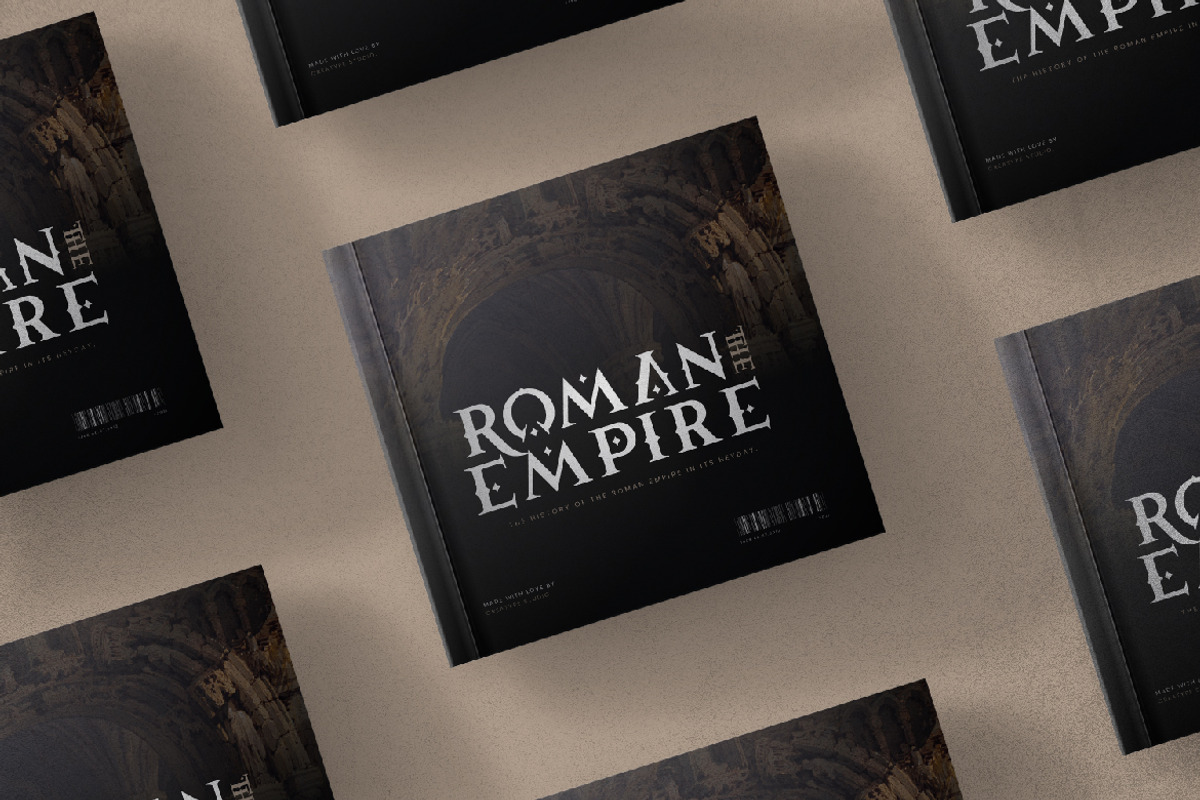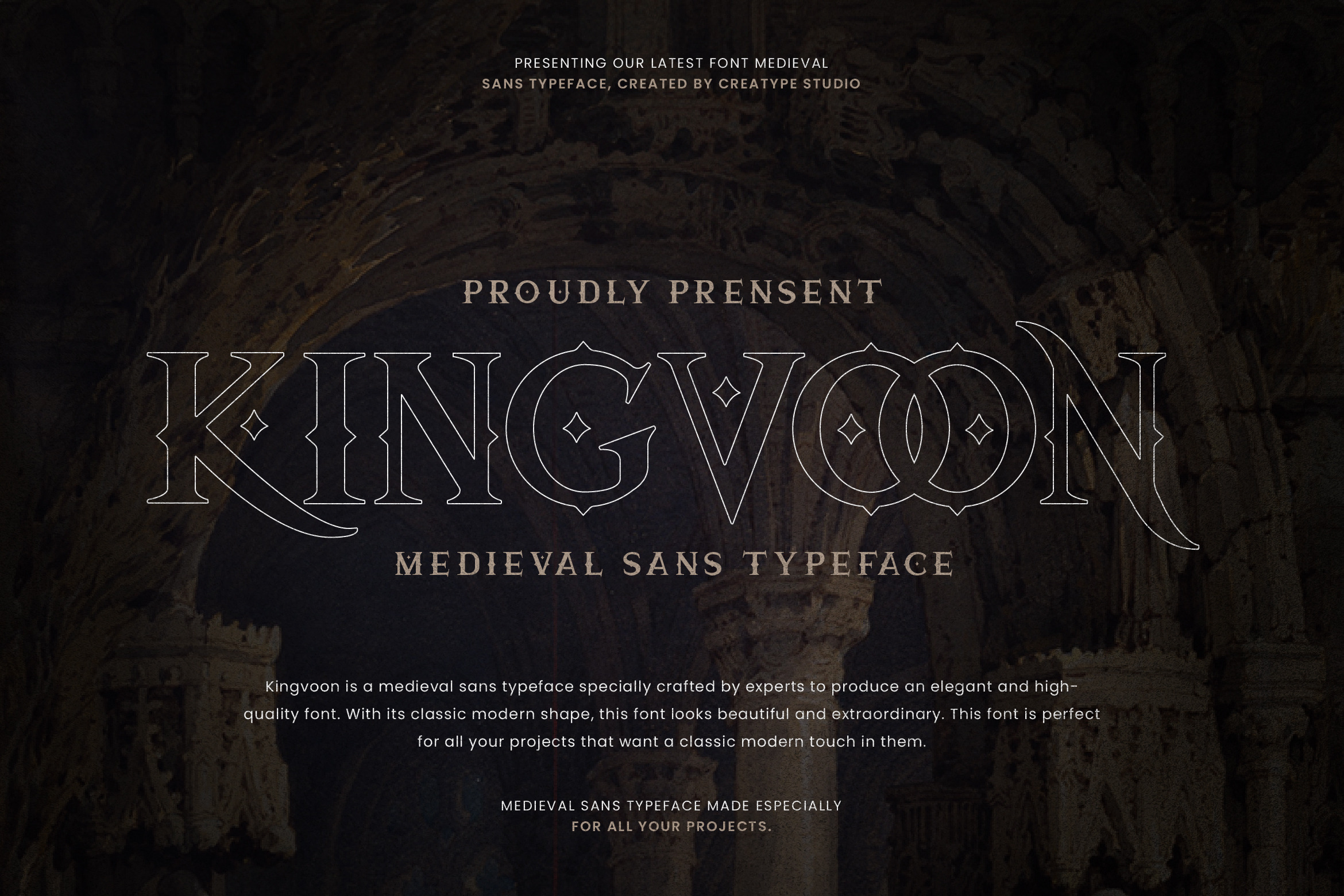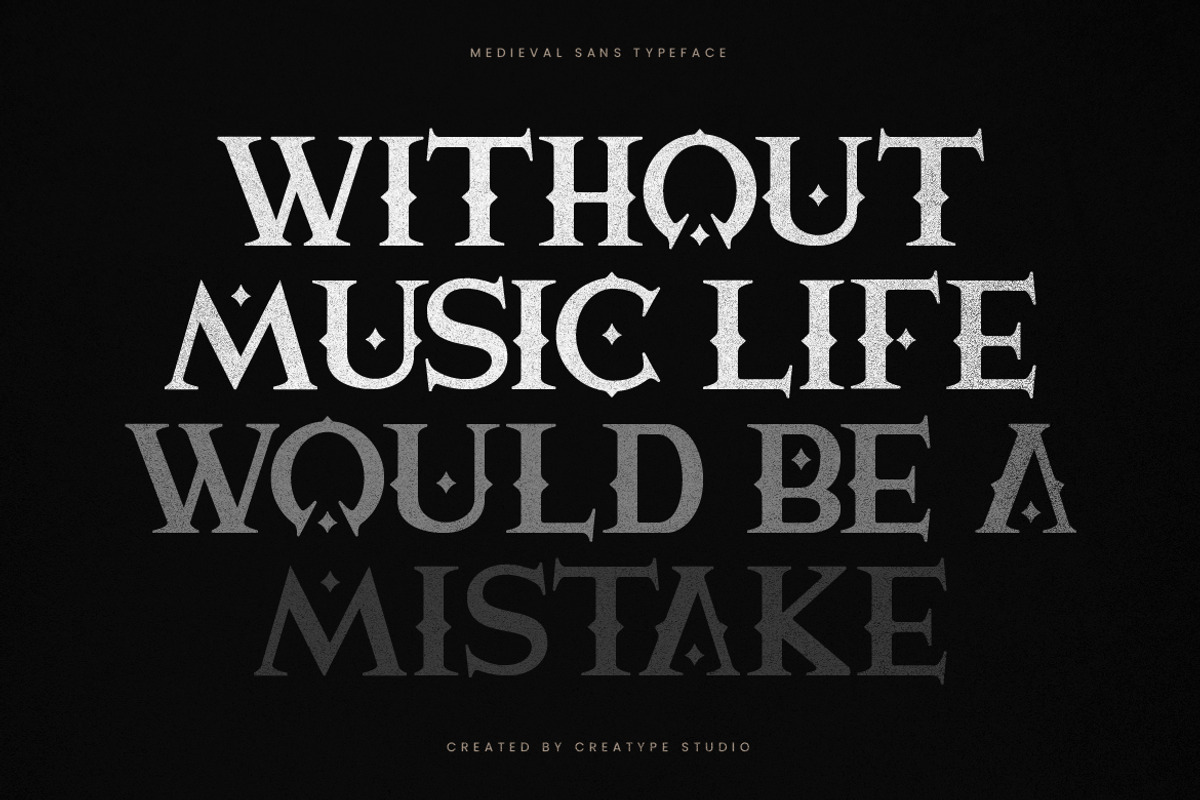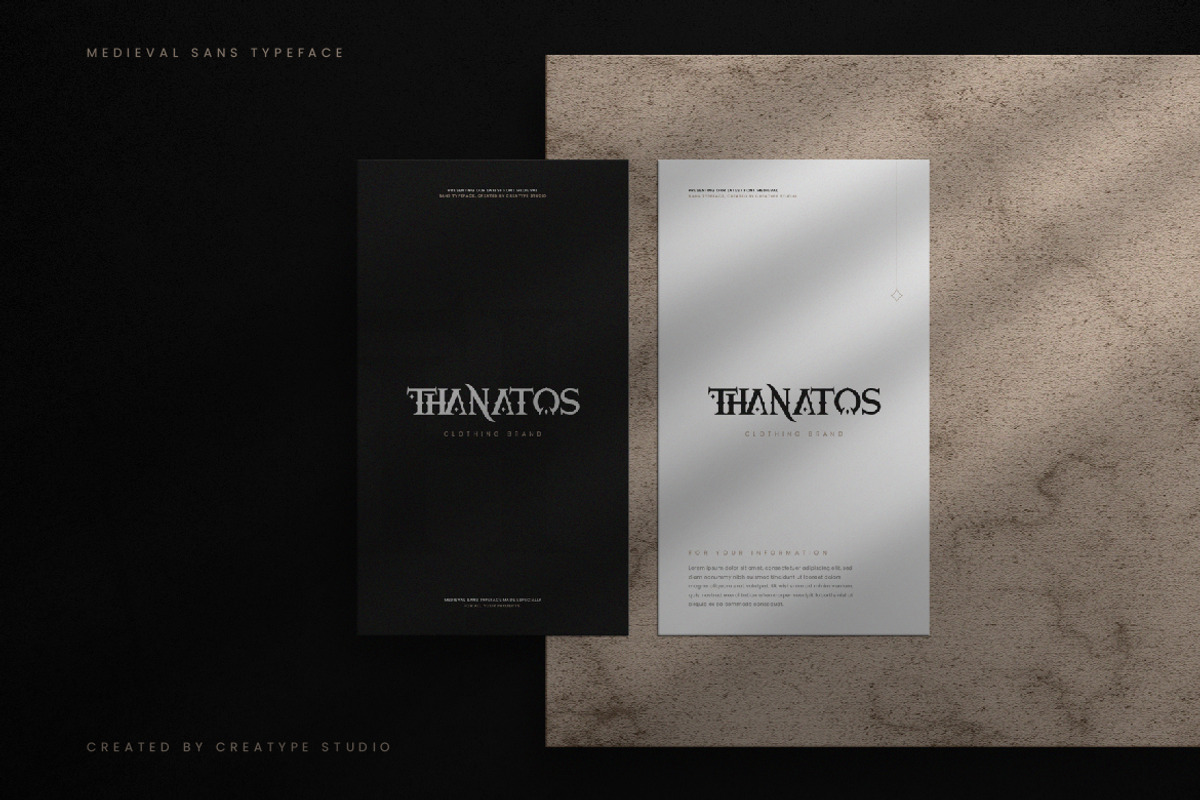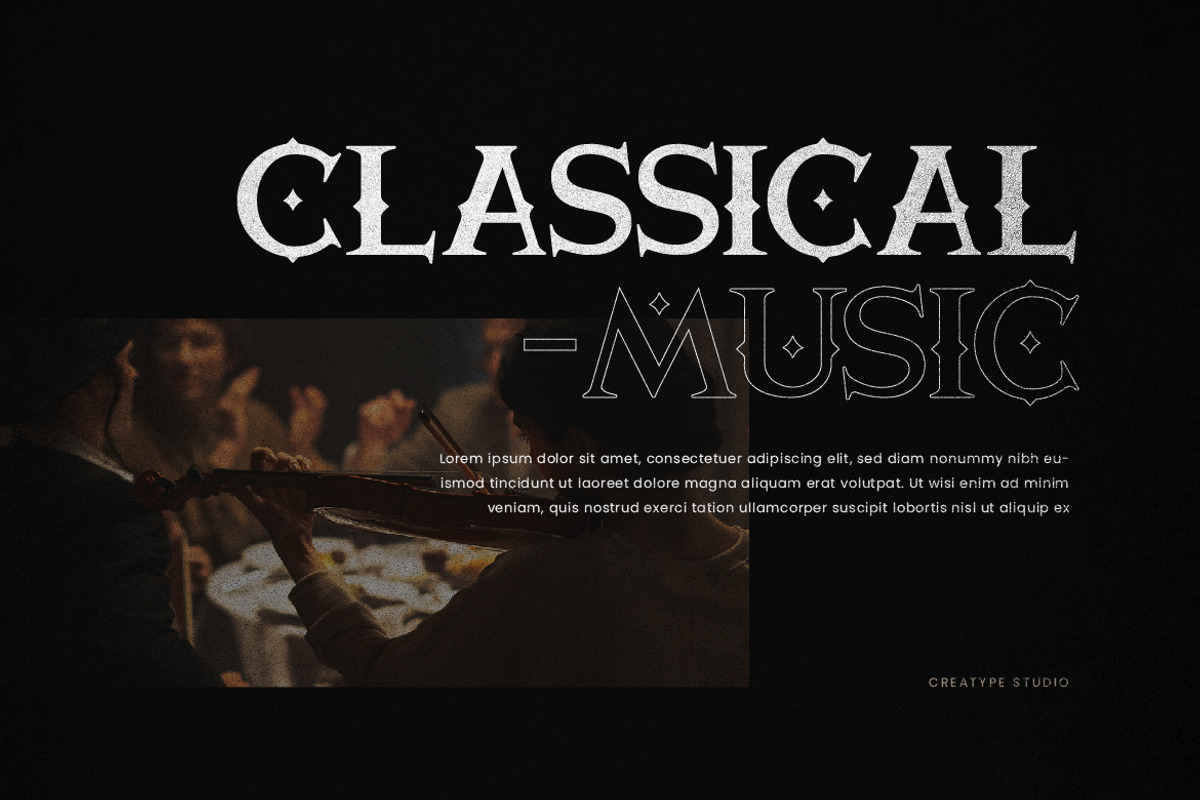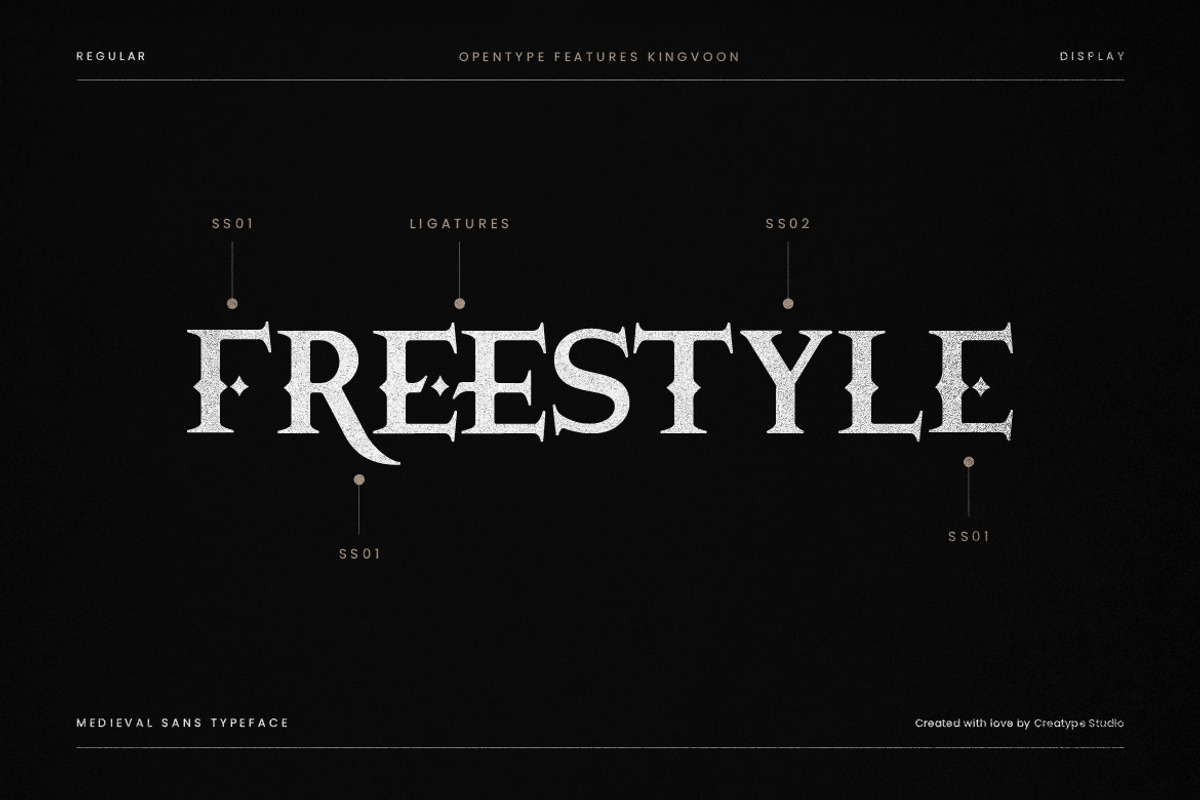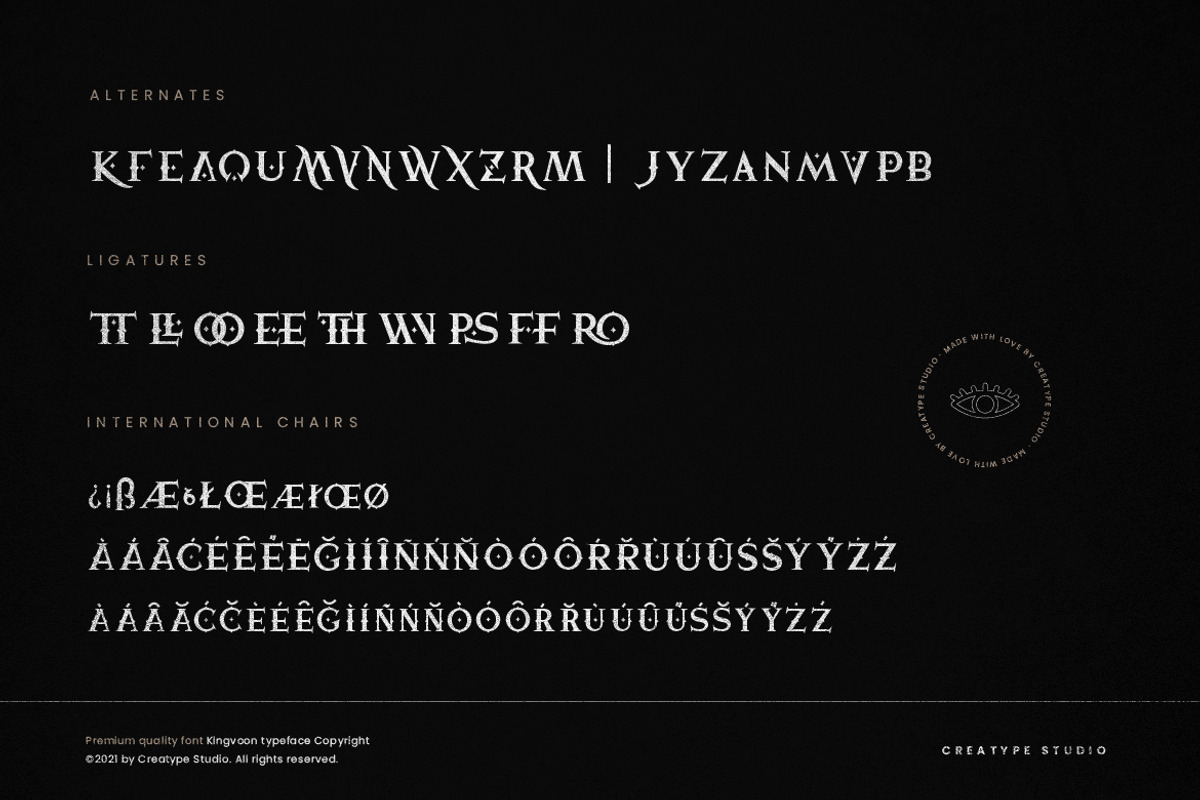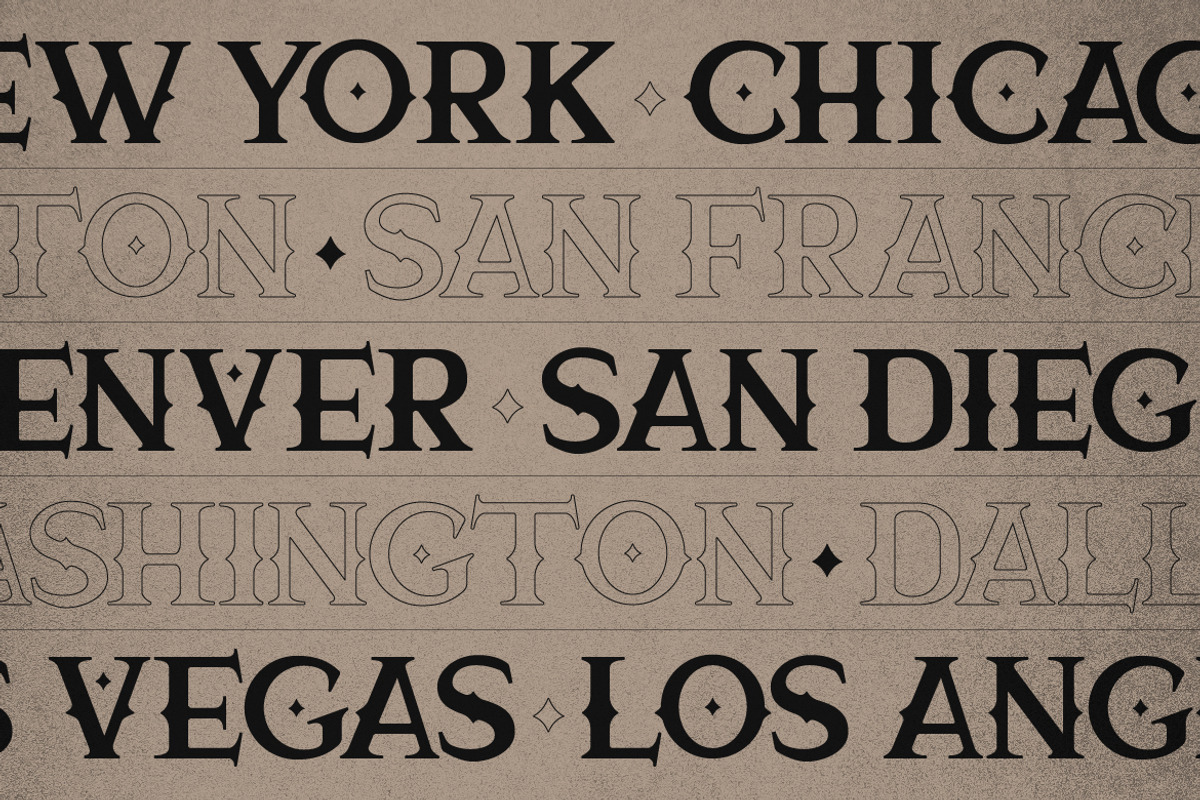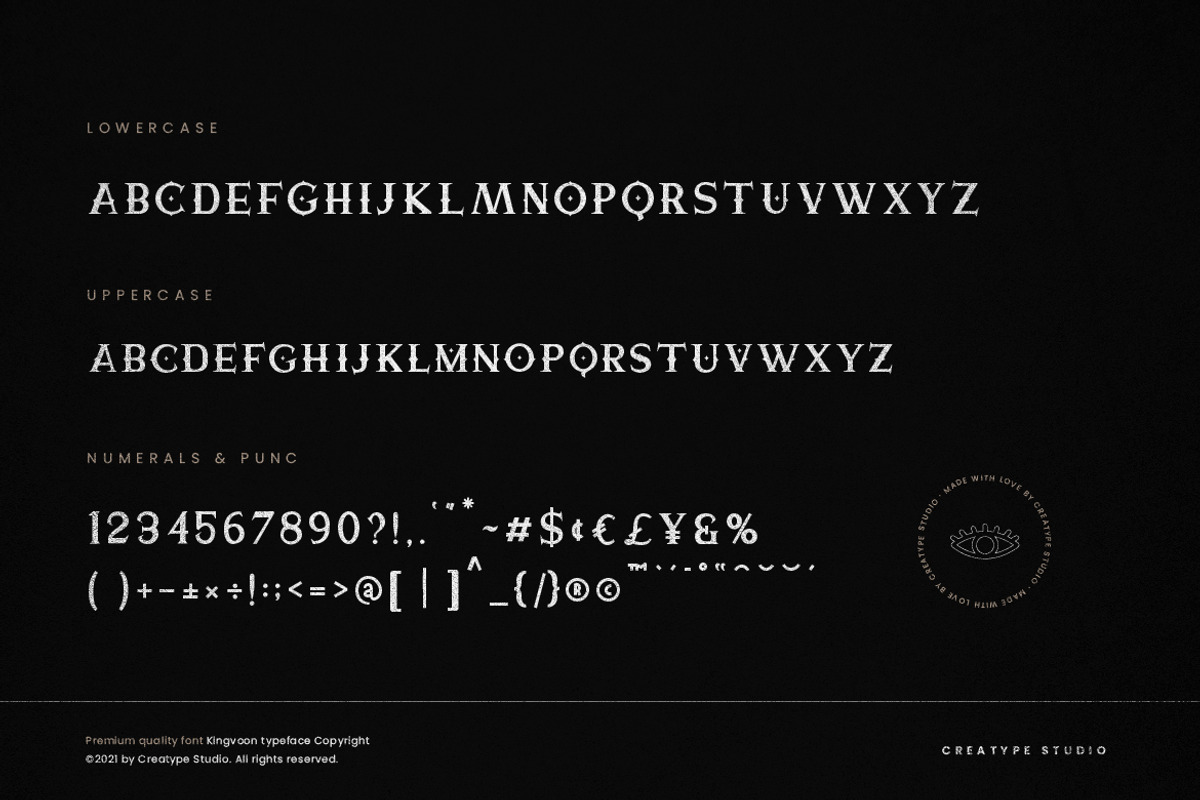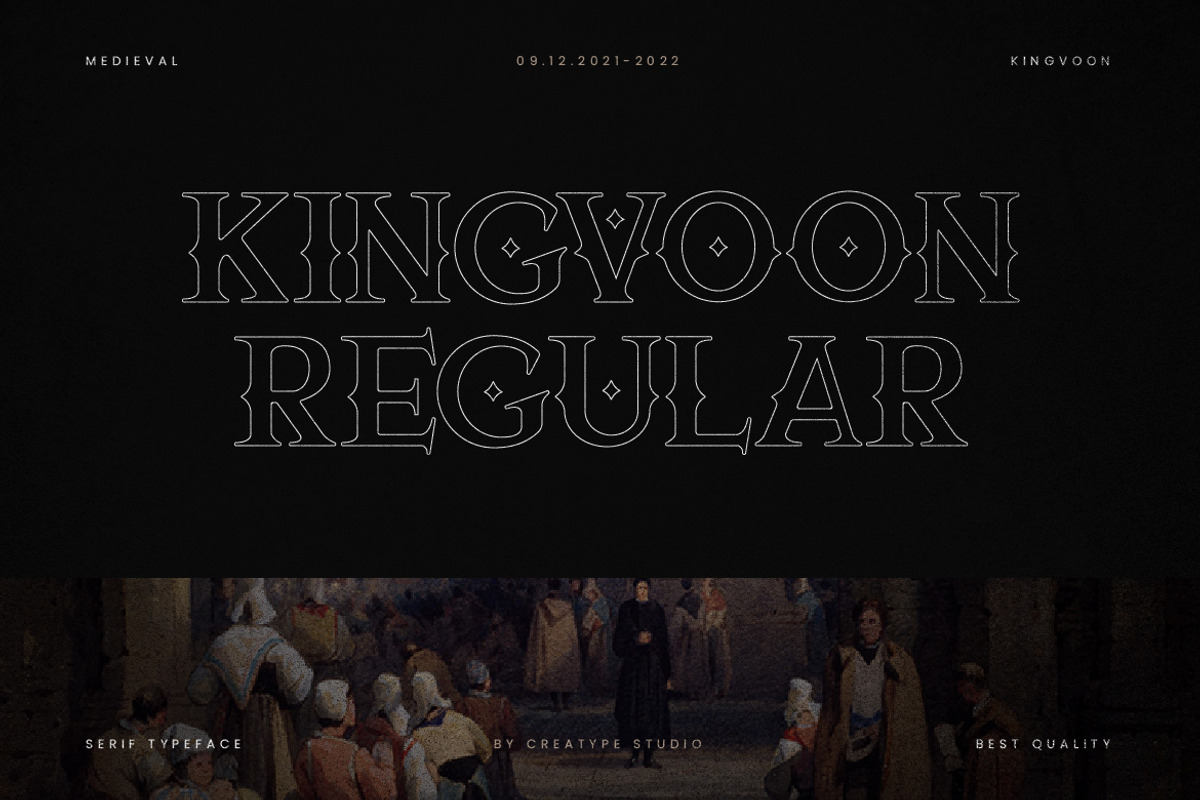
Kingvoon Medieval Business Font
Kingvoon is a retro funk typeface with a modern twist. This expertly hand-drawn retro font makes for a font that is simply perfect and a pleasure to work with. This font is inspired by the psychedelic movement from the mid-60s, making it a great font for your large projects.
Kingvoon is perfect for branding projects, logo, wedding designs, social media posts, advertisements, product packaging, product designs, label, photography, watermark, invitation, stationery and any projects that need handwriting taste.
- Ligature & Alternate
- Fonts include multilingual support for; Afrikaans, Albanian, Czech, Danish, Dutch, English, Estonian, Finnish, French, German, Hungarian, Italian, Latvian, Lithuanian, Norwegian, Polish, Portuguese, Slovak, Slovenian, Spanish, Swedish.